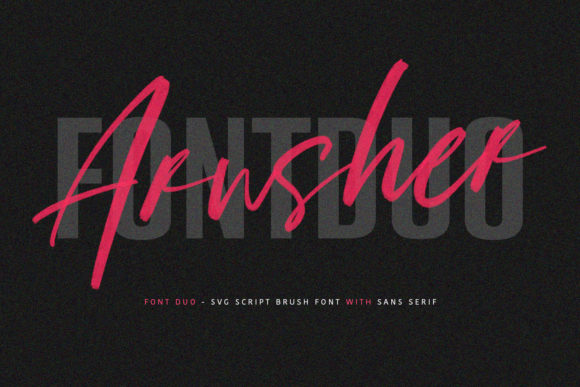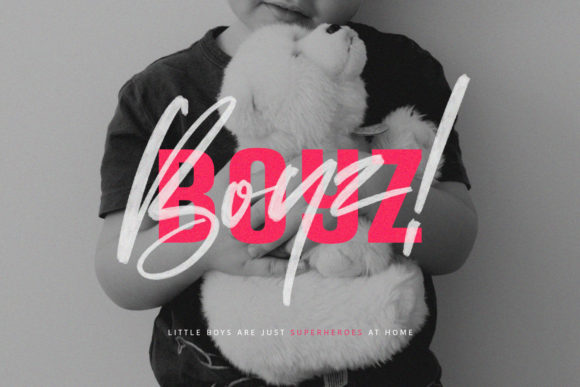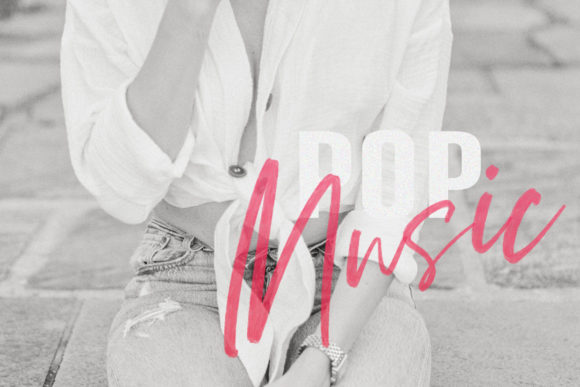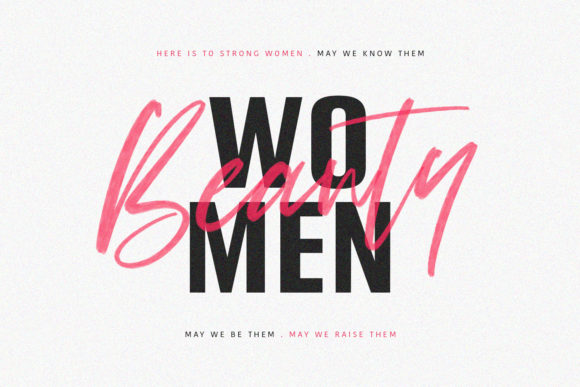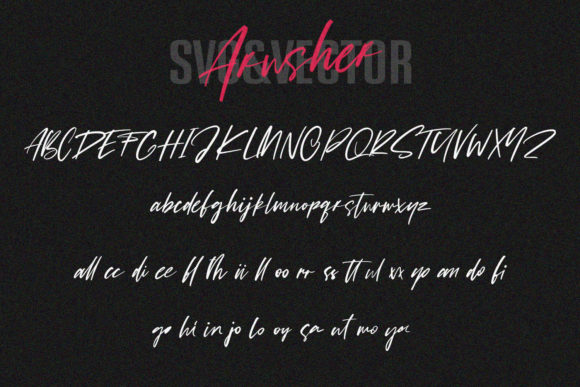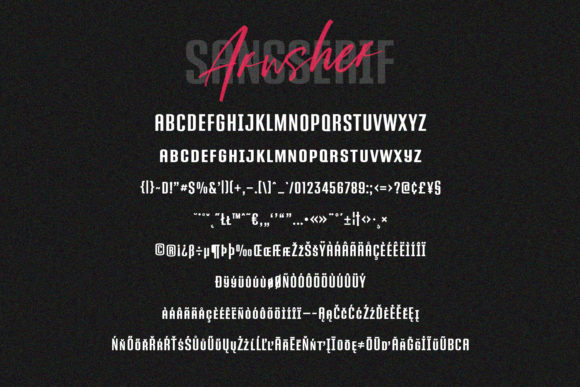
Arusher Font
About Arusher Font
Arusher is a spectacular duo font (sans and script). Incredibly versatile, this font fits a wide pool of designs, elevating them to the highest levels. Add Arusher to your favorite creative ideas and notice how it makes them come alive!